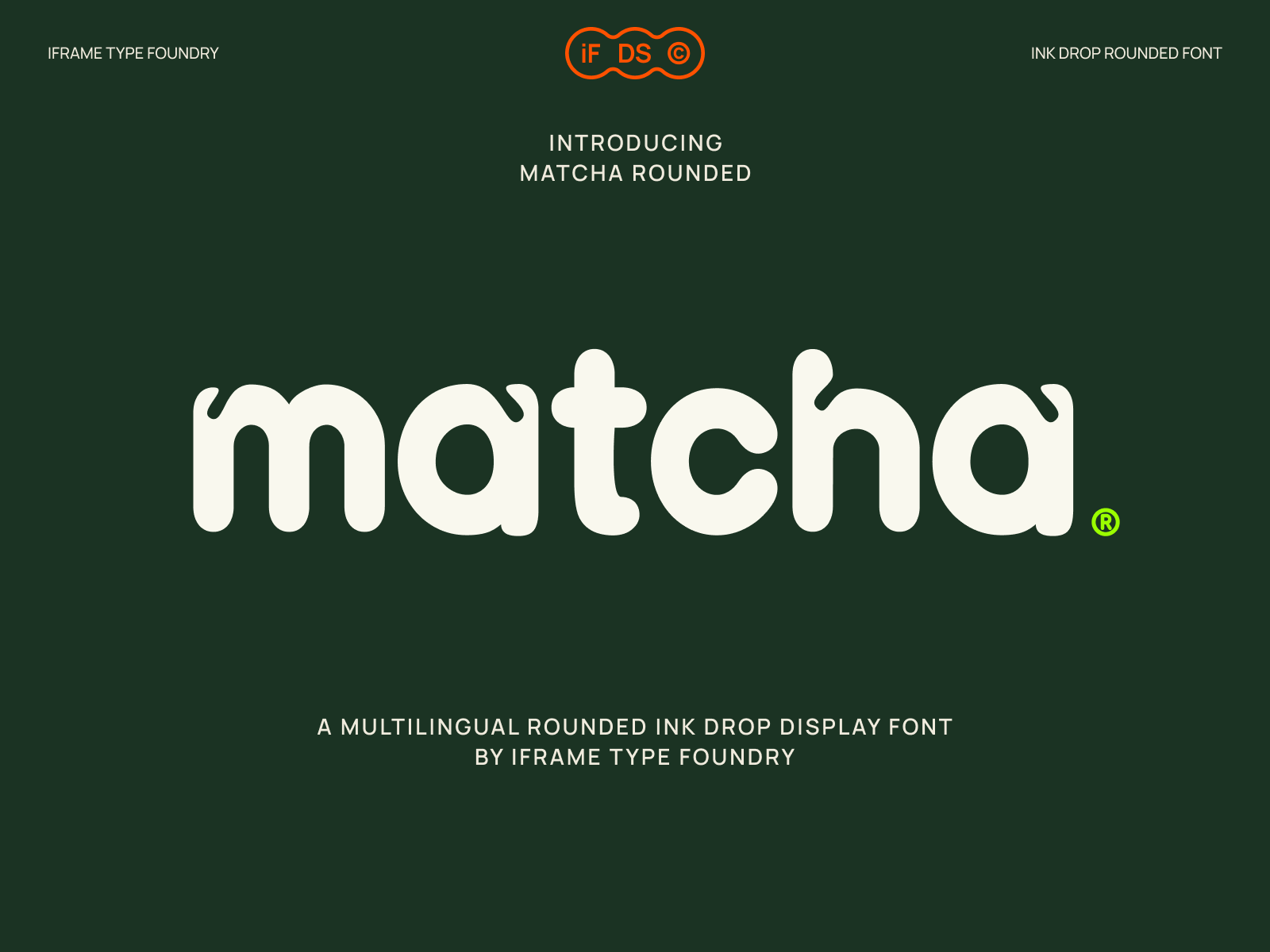
matcha rounded font
Matcha Rounded is a multilingual ink drop display font engineered for professional graphic and web design applications. Developed by iframe Type Foundry, it combines robust structural letterforms with softened, rounded terminals to deliver strong visual impact for branding, packaging, and digital UI typography.
Classification: Rounded Display Sans-Serif
Language Support: Comprehensive Latin and Greek character sets
Multilingual: Extensive diacritics and accents for global compatibility
Glyphs: Complete uppercase, lowercase, numerics, standard punctuation, and specialized typographic symbols